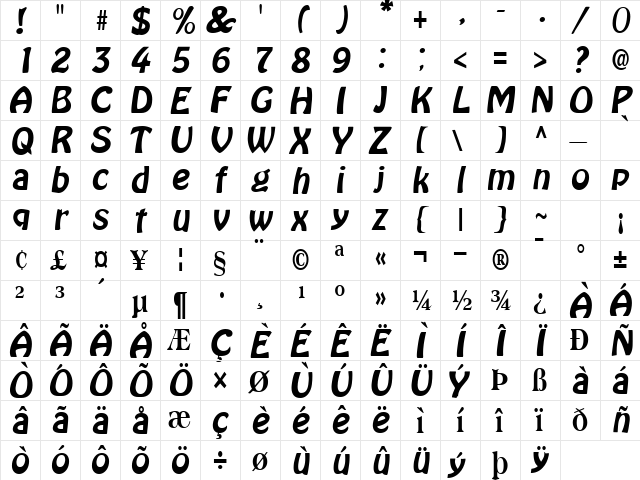
Batavia Regular Font Preview
Batavia Regular
Batavia Regular Font Details
Design Context for Batavia Typeface
Batavia is a composed and adaptable typeface that performs quietly and consistently across a wide range of design contexts.